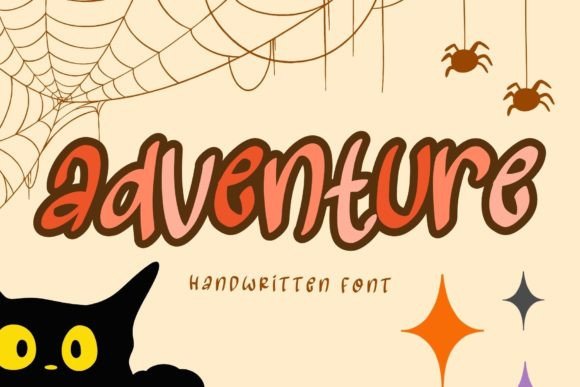
The Adventure Font: A Playful Companion for Your Creative Journey
Have you ever been in the middle of a design project, and suddenly, you’re stuck on finding the perfect font? I recall a recent experience where I was working on a branding project for a travel company, and I just couldn’t find a font that captured the essence of adventure and playfulness. That’s when I stumbled upon the Adventure Font, and it instantly became my go-to choice. In this article, I’ll share my experience with this lovely font, its features, and how to make the most of it in your designs.
A Personal Review: What I Love About Adventure Font
The Adventure Font is a cute, handwritten font that embodies playfulness and authenticity. Here are some things I love about it:
• ✨ Playful and whimsical: The font has a carefree, hand-drawn feel that’s perfect for projects that require a touch of personality.
• ✅ Highly versatile: Adventure Font is suitable for a wide range of projects, from blog posts and logos to branding, ads, invitations, and more.
• 💕 Easy to read: Despite its playful nature, the font remains clear and easy to read, making it perfect for body text and headings.
While I adore the Adventure Font, there are a few minor quirks to be aware of:
• 🤔 Limited formal use: Due to its playful nature, this font might not be the best choice for very formal or professional projects.
• ⚠️ Some letters may require adjustment: As with any handwritten font, some letters might need adjusting to ensure proper spacing and kerning.
The Designer Inspiration Behind Adventure Font
Although I couldn’t find a detailed backstory on the Adventure Font, it’s clear that the designer aimed to create a playful, yet authentic font that would inspire creativity and adventure. The font’s carefree nature and attention to detail make it a wonderful addition to any design project.
Font Name Adventure Font
Author Brown Cupple Fonts
Q: What type of projects is Adventure Font best suited for?
A: Adventure Font is perfect for projects that require a playful and authentic touch, such as blog posts, logos, branding, ads, invitations, and more.
Q: Does Adventure Font support OpenType features?
A: Yes, Adventure Font supports OpenType features like ligatures and stylistic alternates, which can be accessed in compatible design software.